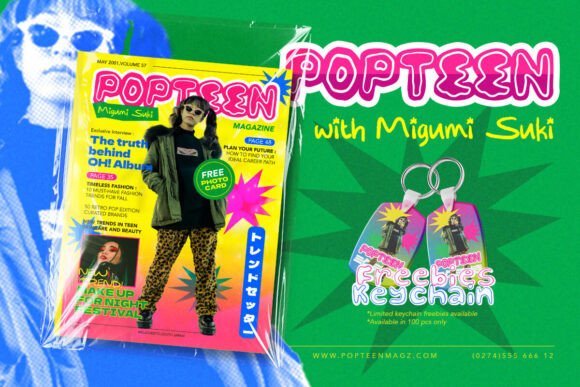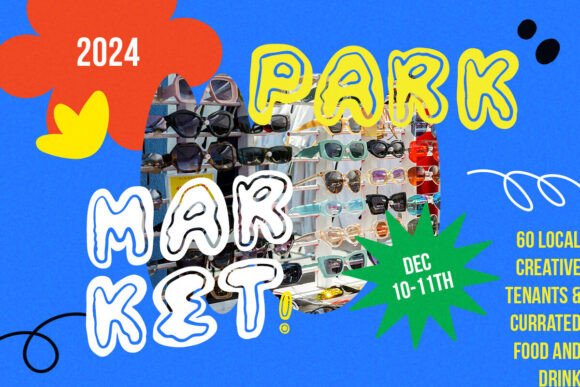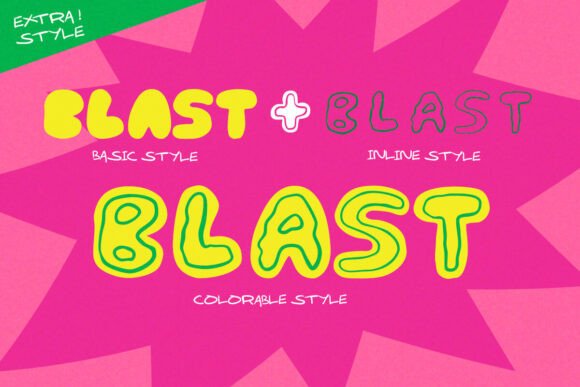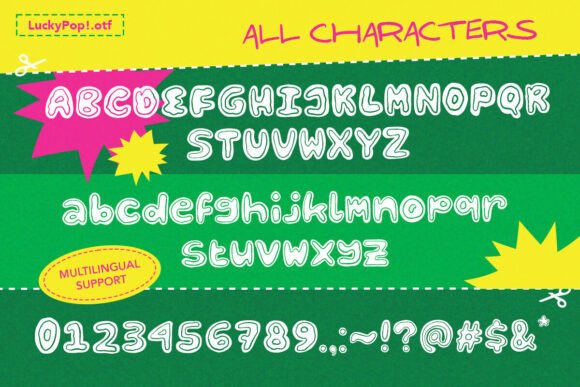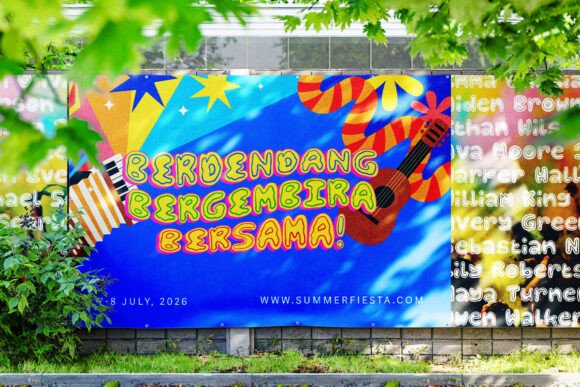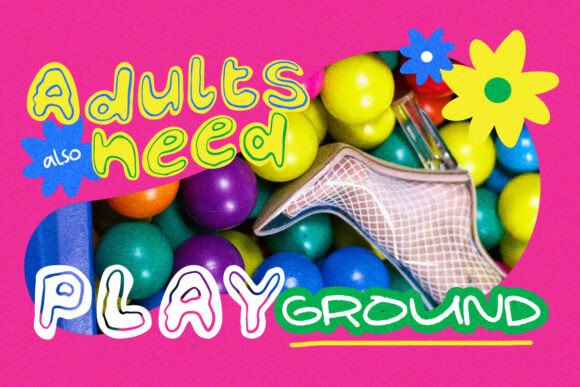
Introduction to Lucky Pop! Font
Have you ever been stuck on a creative project, searching for the perfect design element to give it that extra oomph? Maybe you’re working on a fun campaign for a client, or perhaps you’re designing a new brand identity. Whatever it is, you need something that’s going to make your project stand out – and that’s where the Lucky Pop! Font comes in.
This high-quality design resource is the perfect addition to any creative project, offering a fun and quirky touch that’s sure to delight. With its separate versions, you can get creative with colors in the inline style, giving you endless possibilities to experiment and try out new looks.
Lucky Pop! Font
- Unique, playful design with a touch of whimsy, perfect for adding personality to your creative project
- Easy to use and customize, making it a great choice for designers and non-designers alike
Honest Review: Lucky Pop! Font
I recently came across the Lucky Pop! Font and I must say, it’s been a game-changer for my creative projects. The font is a high-quality design resource that’s perfect for anyone looking to add a touch of personality to their work.
- ✨ The font’s unique design makes it perfect for creating eye-catching headings and titles.
While the Lucky Pop! Font is an excellent addition to any design library, there are a few limitations to consider:
- ⚠️ The font may not be suitable for use in situations where a more traditional or formal font is required.
- ⚠️ Some users may find the font’s unique design to be too flashy or overpowering.
Overall, I’m thoroughly impressed with the Lucky Pop! Font. Its high-quality design and versatility make it a valuable resource for any designer working on a creative project. Whether you’re a seasoned pro or just starting out, I highly recommend giving it a try.
Tips for Getting the Most Out of the Lucky Pop! Font
The Lucky Pop! Font is ideal for use in digital marketing materials, social media graphics, and website design. It’s also a great choice for creating invitations, flyers, and brochures. With its high-quality design and transparent background, the Lucky Pop! Font is perfect for any creative project that requires a unique and stylish touch.